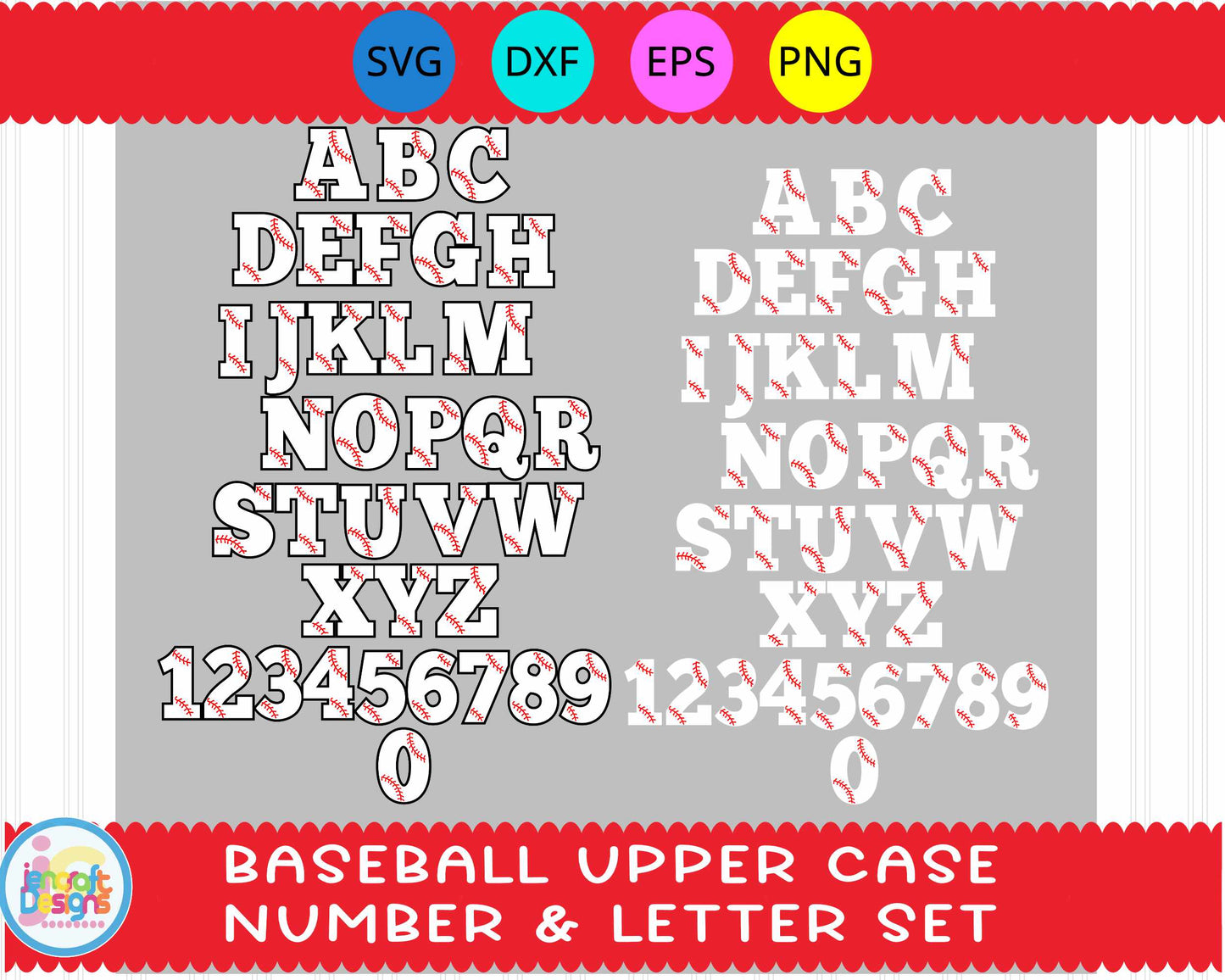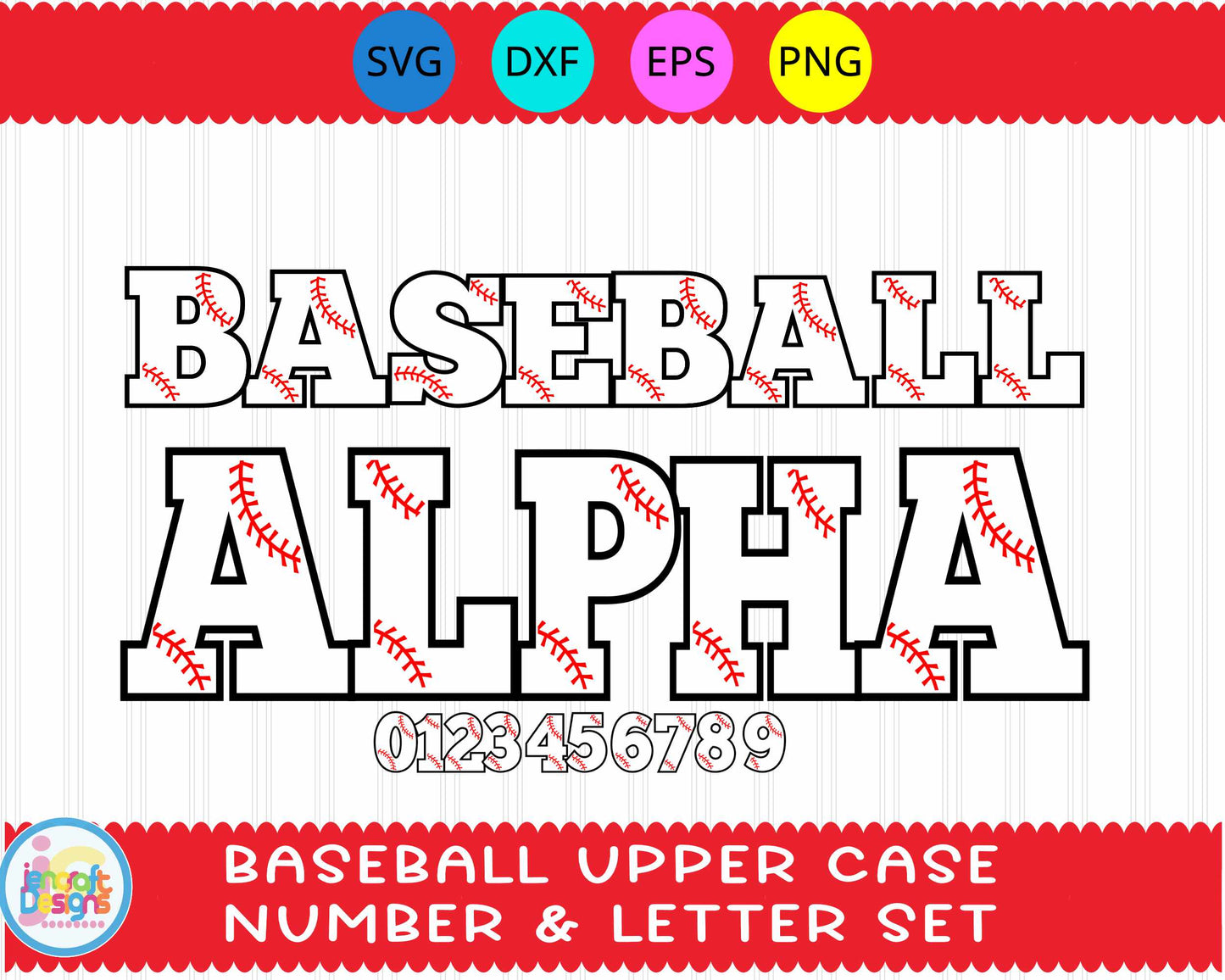
This baseball alphabet SVG is a complete A–Z graphic letter set featuring classic baseball stitch styling — perfect for personalizing names, monograms, and sports-themed projects. Please note: this is a digital graphic letter set in SVG, EPS, DXF, and PNG formats — it is not an installable TTF or OTF font file. Each letter is a separate cut file you place and size in your design software.
- Personalized baseball name shirts and jerseys
- Sports monogram tumblers and mugs
- Team gear and fan accessories
- Baseball mom and dad projects